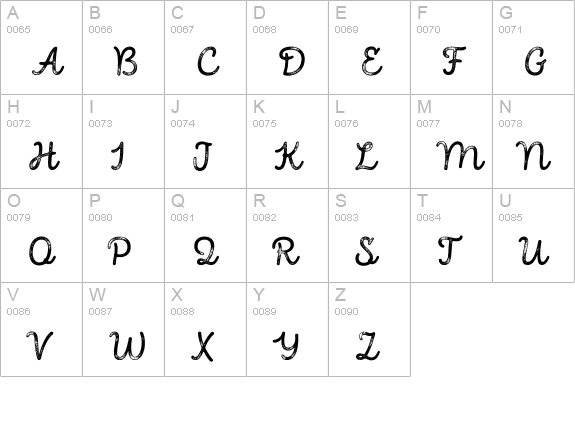
Intro Script B G Base Font Details
Introducing the captivating Intro Script B G Base font, a stunning typeface that brings elegance and sophistication to any design project. This font features beautiful, flowing script letters with a touch of modern flair, making it perfect for invitations, branding, logos, and more. The graceful curves and stylish strokes of Intro Script B G Base will truly elevate your designs and leave a lasting impression. Best of all, this exquisite font is available for free download at FontsMarket.com. That's right, you can enhance your creative projects with this premium quality font without any cost. Don't miss out on the opportunity to add Intro Script B G Base to your font collection today and take your designs to the next level. Download now and let your creativity shine!